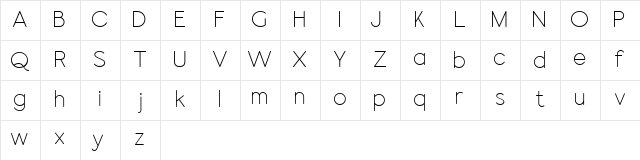
Complete AURADEMO Regular glyph index. Displaying only characters natively supported by AURADEMO Regular font.
AURADEMO is a composed and adaptable typeface that performs quietly and consistently across a wide range of design contexts.
Pro Tip: Use AURADEMO in both headline and body roles to test its range before committing to a single application.